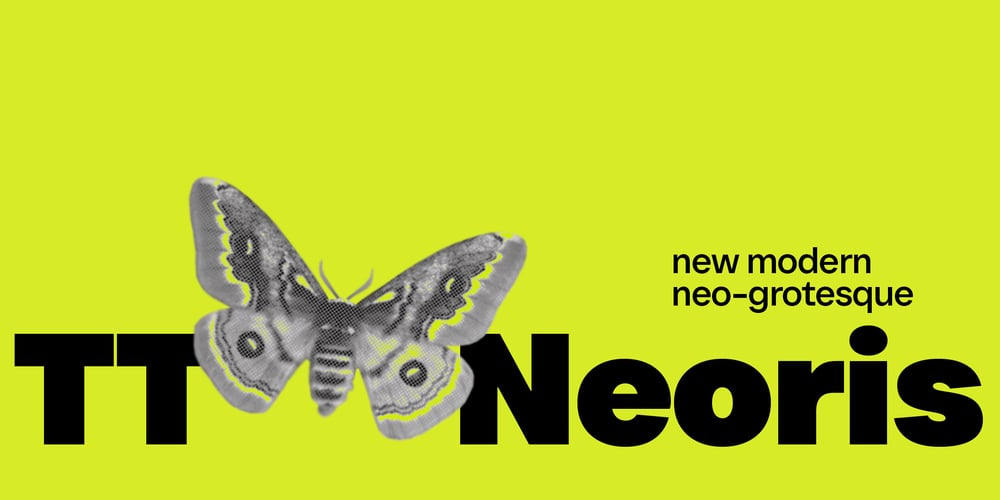
TT Neoris
TT Neoris font
TT Neoris Font Family was designed by Antonina Zhulkova, TypeType Team and published by TypeType. TT Neoris contains 21 styles and family package options. The future of Neo-Grotesques is now! Introducing TT Neoris—a new ambitious font from TypeType.TT Neoris is an ideal sans with: 21 font styles: 10 upright, 10 italics, and 1 variable font; 1832 characters; 41 OpenType features; 14 stylistic sets with Soft character and Upright cursive in Latin and Cyrillic character sets; 230+ languages support; Special condensed italics designed to create a ‘highlighting’ effect when used in specific text segments.